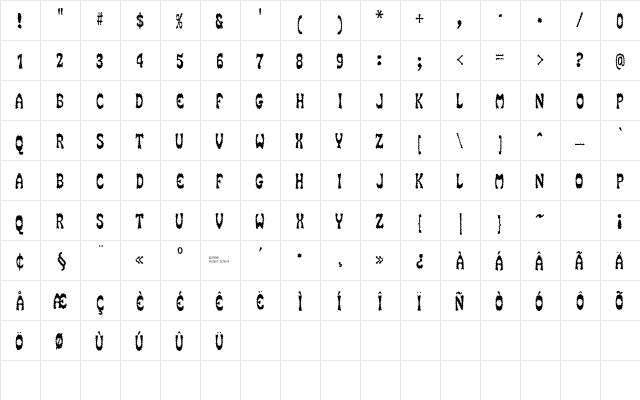
SmokeHouseRough Regular
Design Context for SmokeHouseRough Typeface
SmokeHouseRough embraces imperfection — its rough, textured character adds raw authenticity to designs that want to feel lived-in and unconventional.
Suited to punk-influenced zines, underground music branding, streetwear, and raw, anti-corporate design.
Pro Tip: Pair SmokeHouseRough with intentionally raw or lo-fi design elements. Fighting against it with overly polished surroundings will undermine its personality.